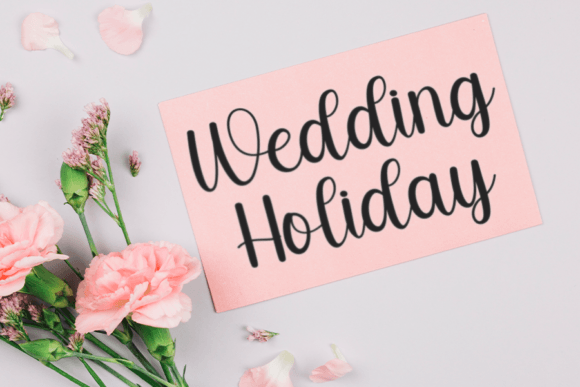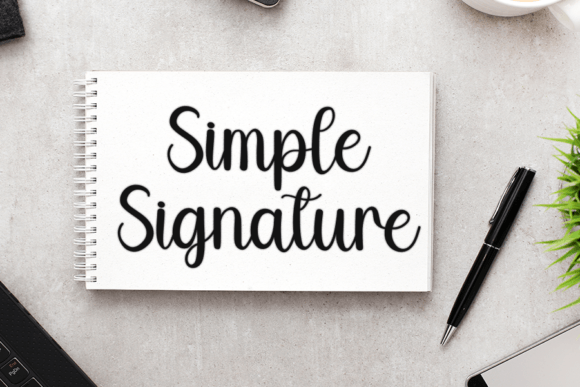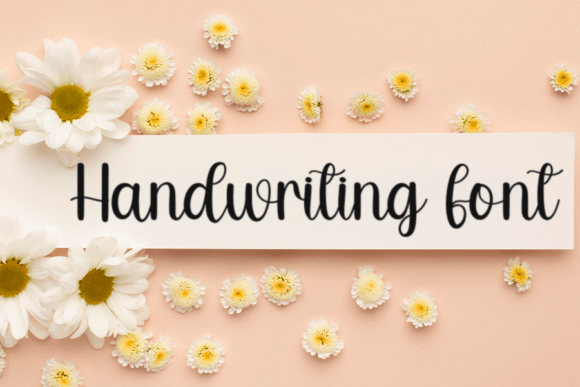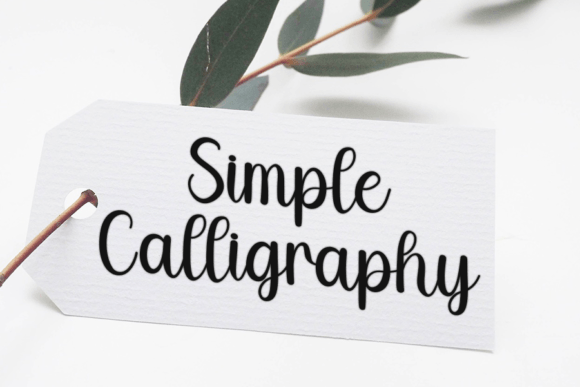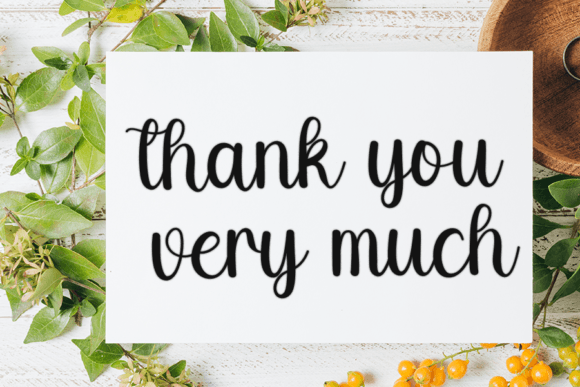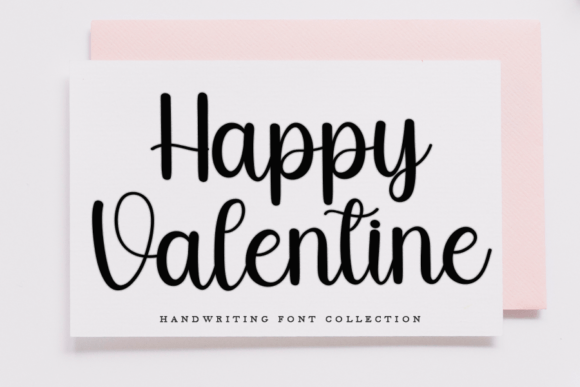
Happy Valentine Font: The Perfect Choice for Your Valentine’s Day Designs
Are you looking for a beautiful and elegant font to make your Valentine’s Day designs stand out? Look no further than the Happy Valentine Font! This stunning handwritten font is described by its elegant touch, making it perfect for your favorite projects. In this article, we’ll dive into the features and benefits of the Happy Valentine Font, and explore how you can use it to create spectacular designs that will leave your audience in love.
What is Happy Valentine Font?
Happy Valentine Font is a neat and beautiful handwritten font that exudes elegance and sophistication. Its incredibly distinct and timeless style makes it perfect for a wide range of design projects, from Valentine’s Day cards and invitations to branding and packaging. With its unique and eye-catching design, Happy Valentine Font is sure to capture the attention of your audience and leave a lasting impression.
Features of Happy Valentine Font
So, what makes Happy Valentine Font so special? Here are just a few of its key features:
- Elegant touch: Happy Valentine Font has a smooth and elegant feel that makes it perfect for designs that require a touch of sophistication.
- Handwritten style: The font’s handwritten style gives it a personal and unique feel that’s perfect for creating designs that stand out.
- Distinct and timeless: Happy Valentine Font has a distinct and timeless style that’s sure to remain popular for years to come.
- Versatile: The font is versatile and can be used for a wide range of design projects, from digital designs to print materials.
Benefits of Using Happy Valentine Font
So, why should you choose Happy Valentine Font for your designs? Here are just a few benefits of using this amazing font:
- Save time: With Happy Valentine Font, you can create stunning designs in no time. The font’s elegant and sophisticated style means you can create professional-looking designs quickly and easily.
- Stand out from the crowd: Happy Valentine Font is a unique and eye-catching font that’s sure to make your designs stand out from the crowd.
- Perfect for Valentine’s Day designs: As its name suggests, Happy Valentine Font is perfect for Valentine’s Day designs, but it’s also versatile enough to be used for other projects throughout the year.
How to Use Happy Valentine Font
Using Happy Valentine Font is easy! Here are a few tips to get you started:
- Pair it with other fonts: Happy Valentine Font pairs perfectly with other fonts, such as sans-serif fonts or script fonts. Experiment with different combinations to find the perfect look for your design.
- Use it for headings and titles: The font’s elegant and sophisticated style makes it perfect for headings and titles. Use it to add a touch of elegance to your designs.
- Experiment with colors and textures: Happy Valentine Font looks great in a variety of colors and textures. Experiment with different combinations to find the perfect look for your design.
Design Ideas Using Happy Valentine Font
- Valentine’s Day cards and invitations: Use Happy Valentine Font to create stunning Valentine’s Day cards and invitations that will impress your loved ones.
- Branding and packaging: The font’s elegant and sophisticated style makes it perfect for branding and packaging designs.
- Digital designs: Use Happy Valentine Font to create stunning digital designs, such as social media graphics and blog posts.
In conclusion, Happy Valentine Font is a beautiful and elegant font that’s perfect for your Valentine’s Day designs. With its incredibly distinct and timeless style, it’s sure to capture the attention of your audience and leave a lasting impression. Whether you’re a designer or crafter, Happy Valentine Font is a must-have font that’s sure to inspire your creativity.